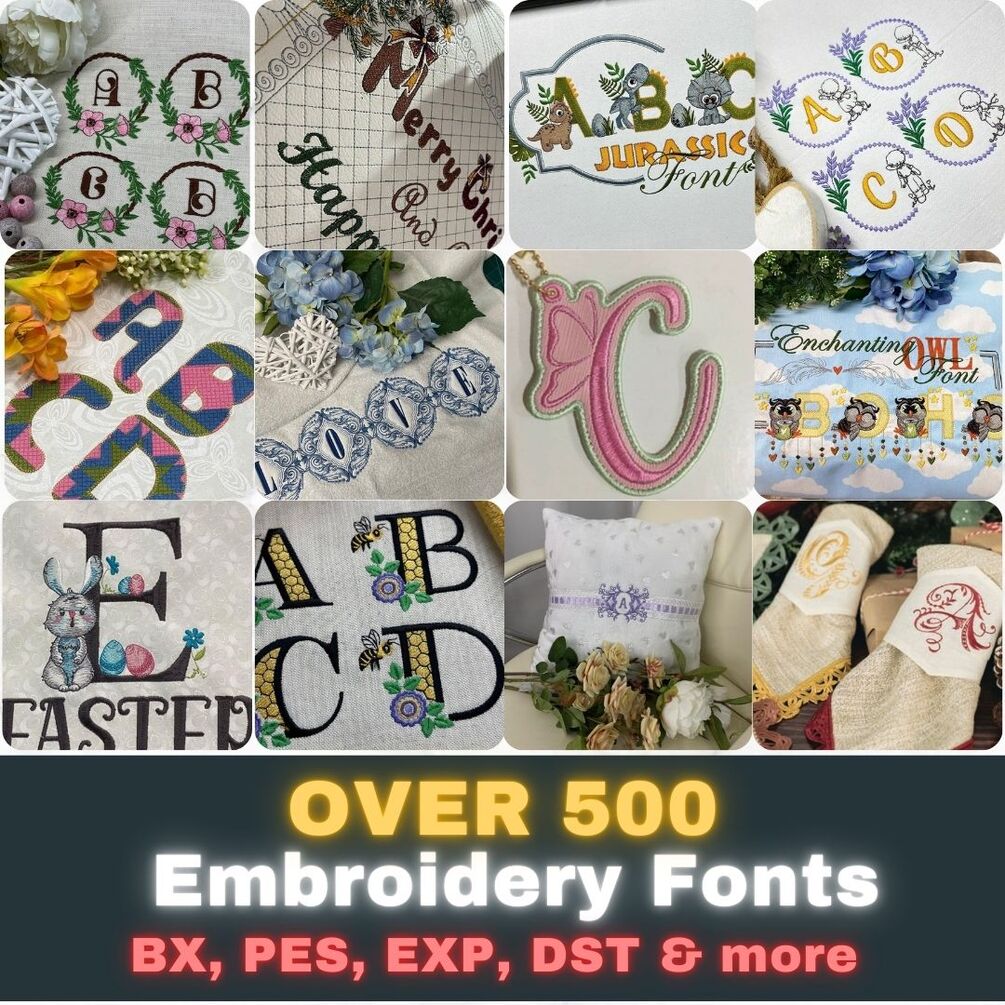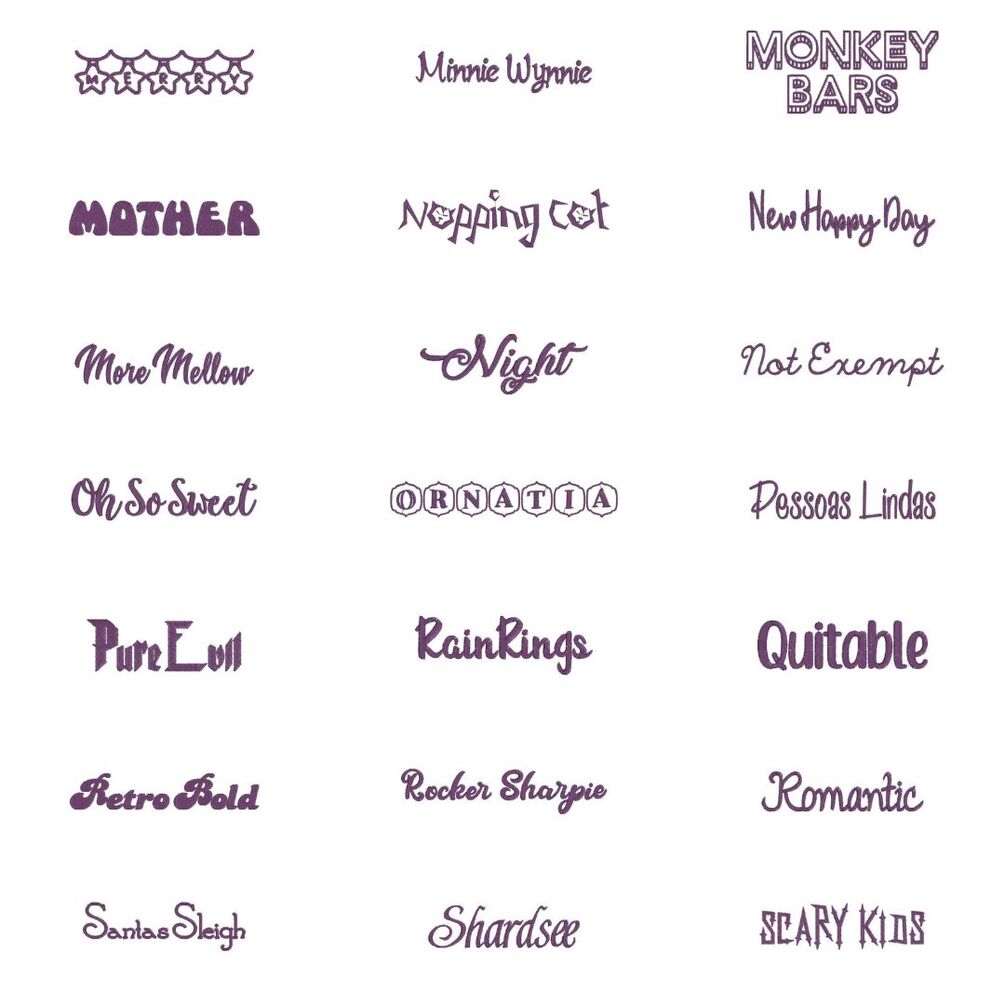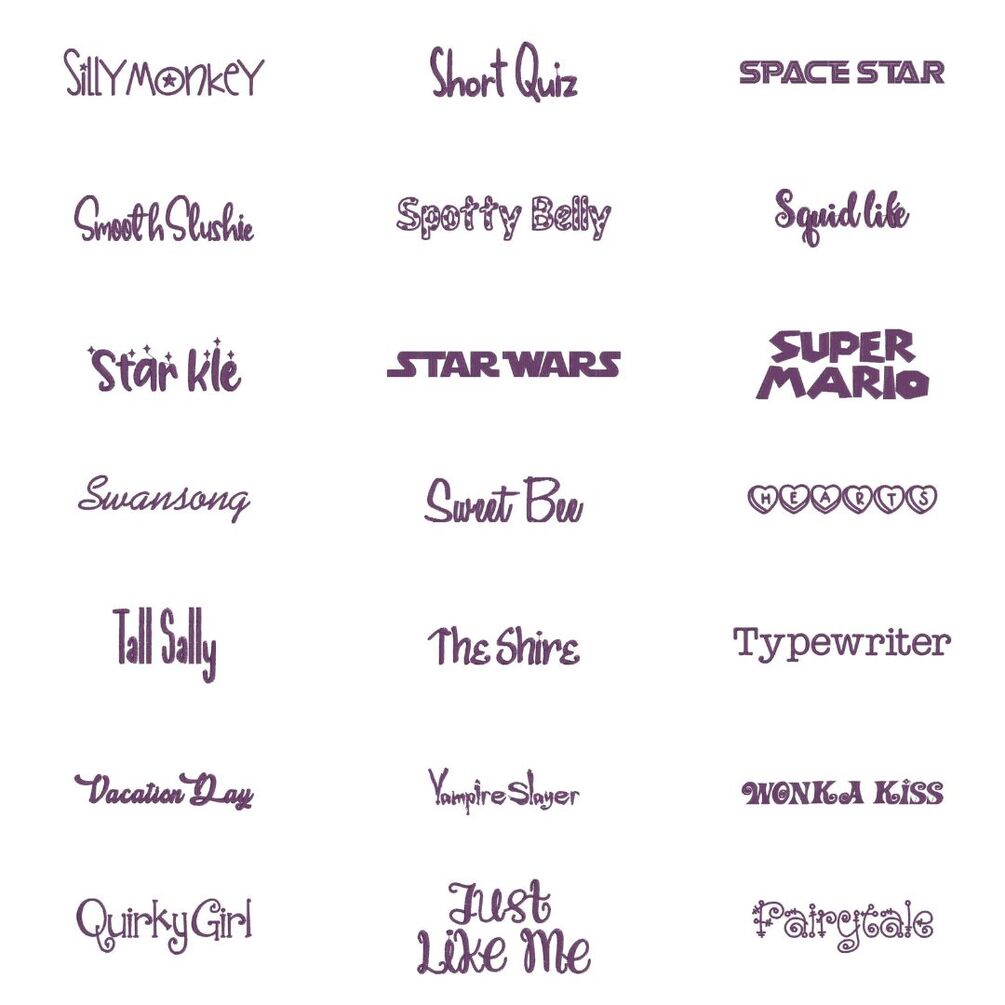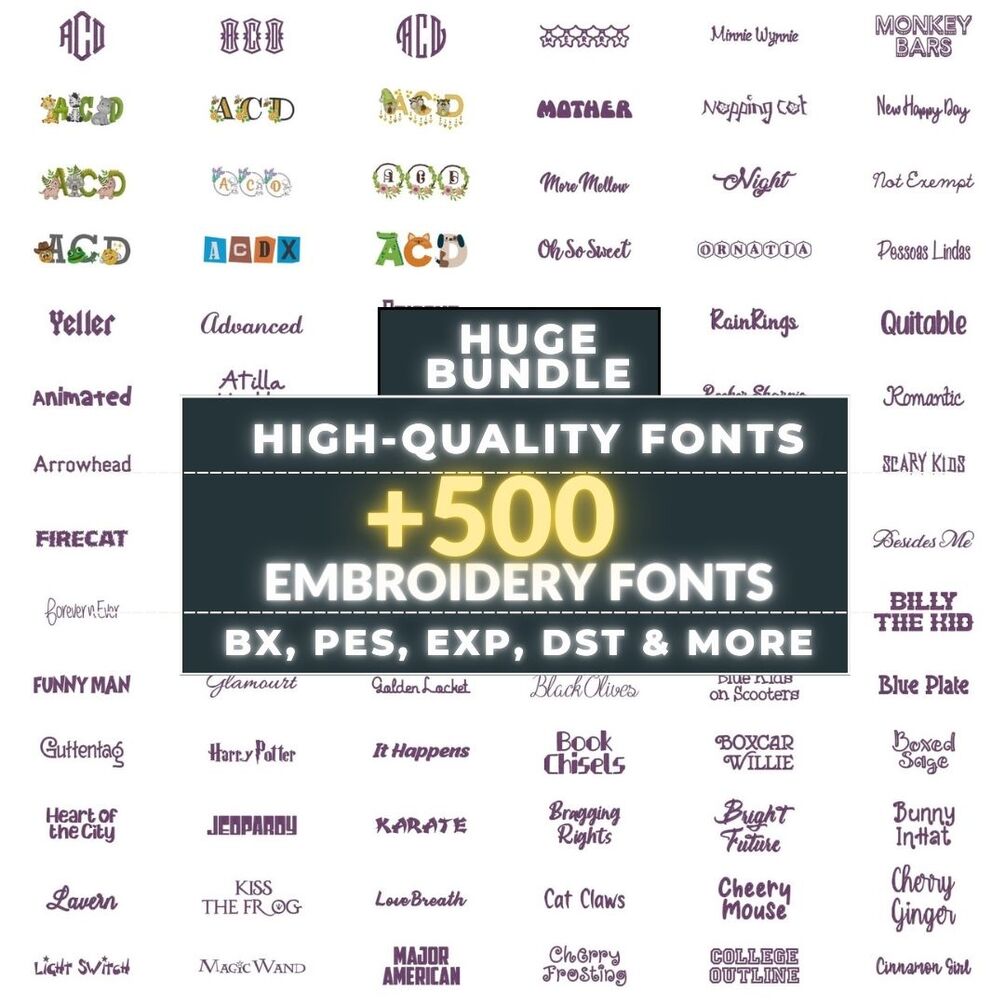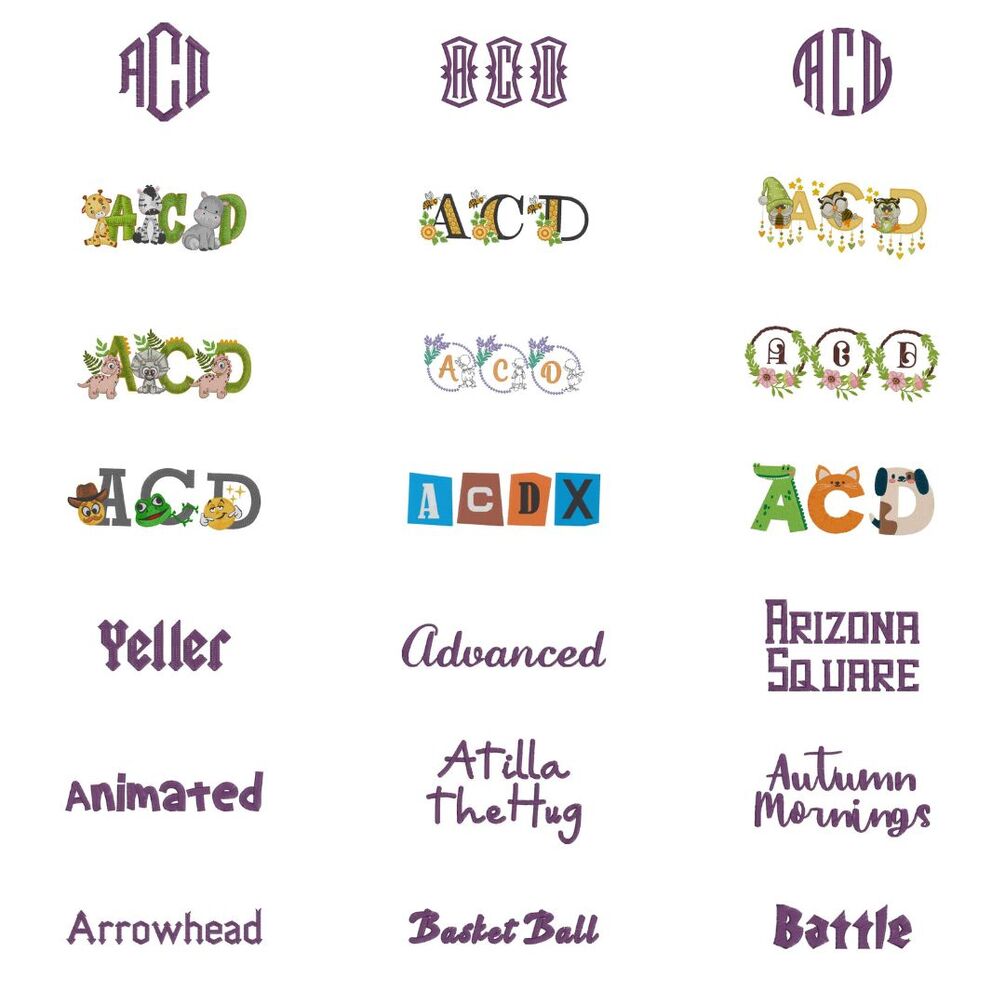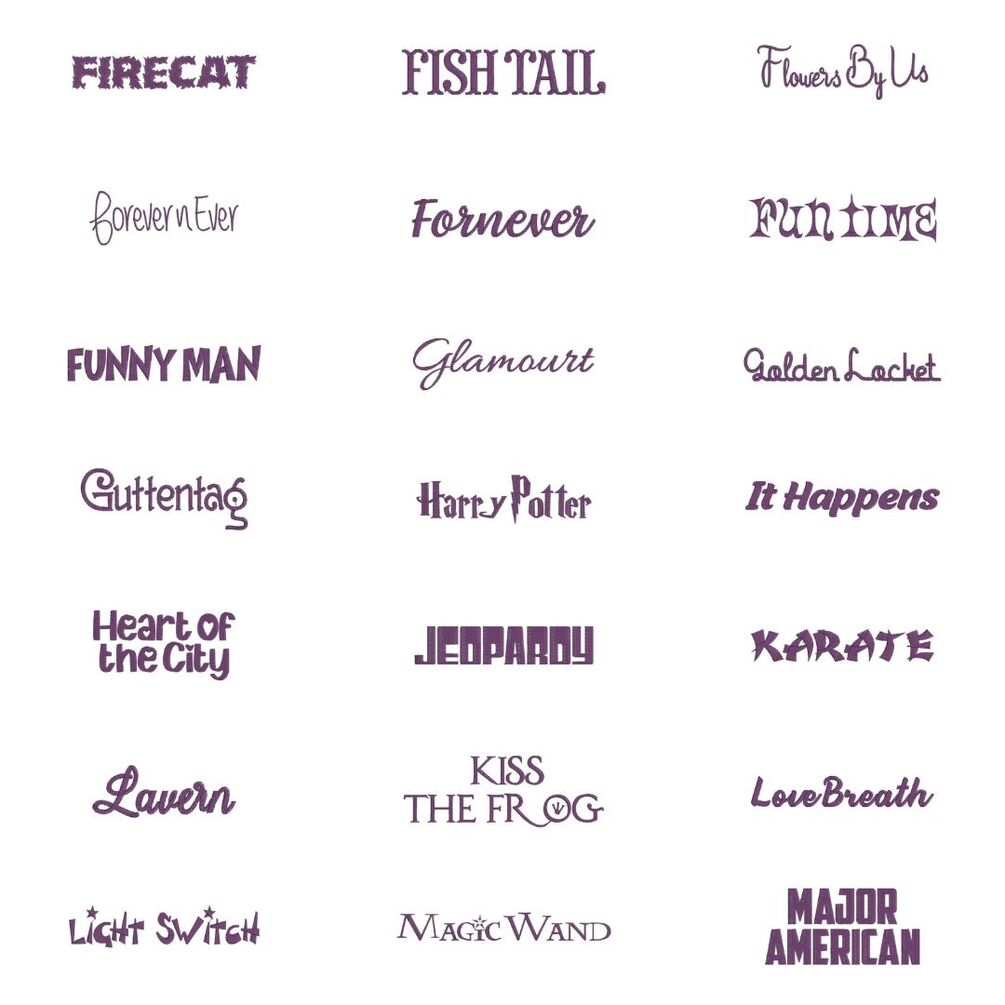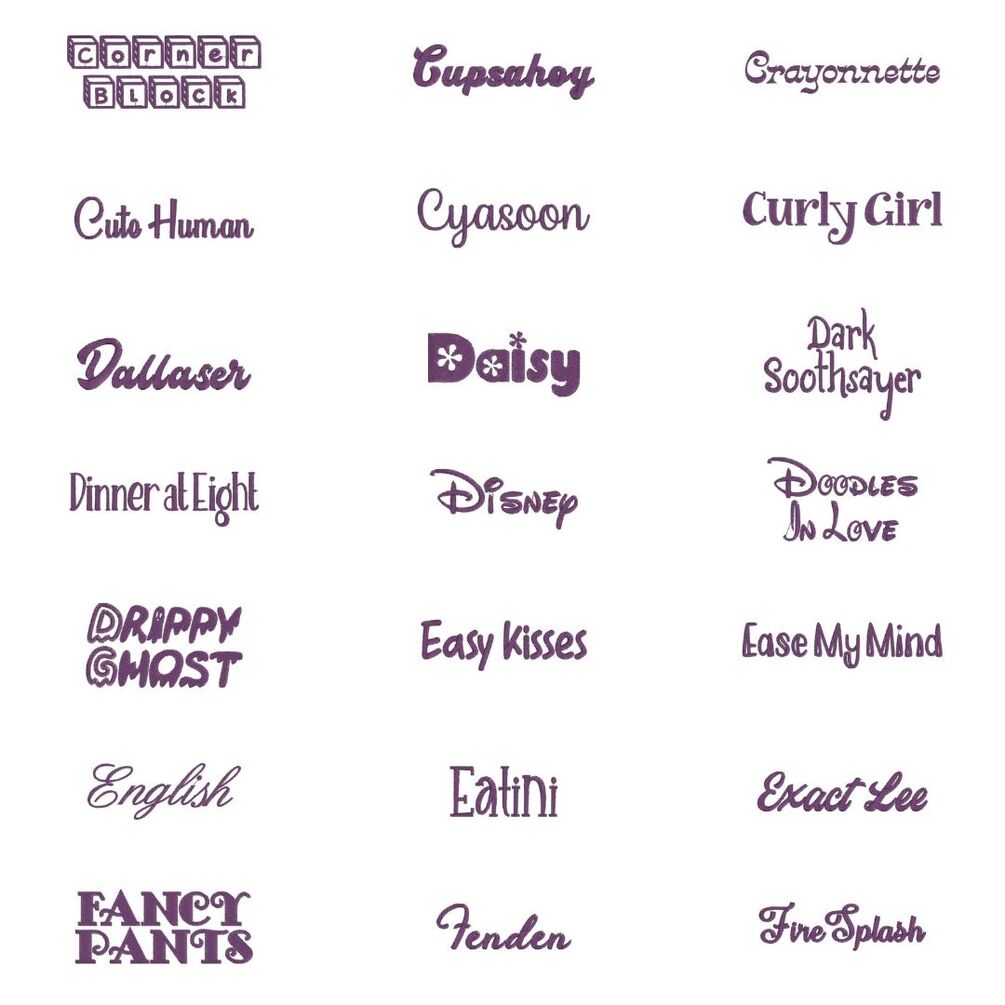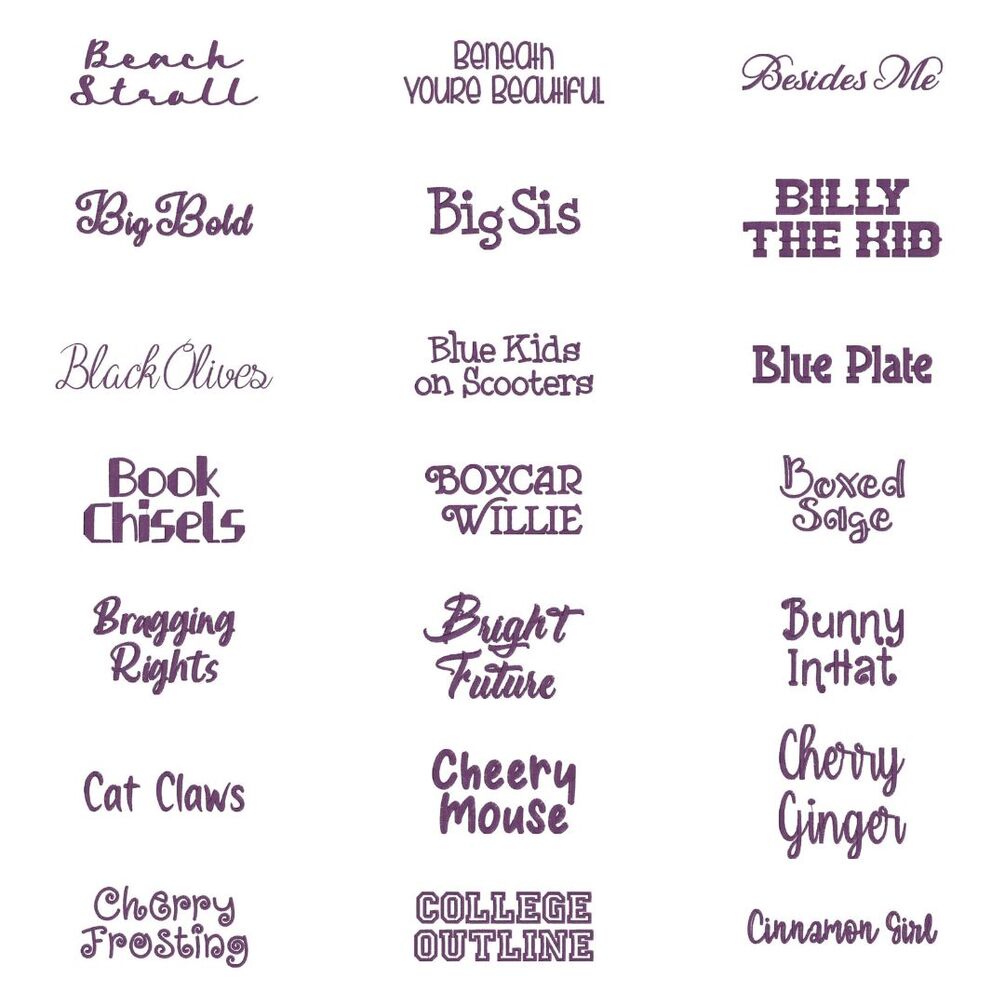
🧡 Massive Machine Embroidery Font Bundle β€” 500+ Premium Fonts in All Major Formats!
* ✨ 500+ high-quality embroidery fonts
* πŸ—‚ Fonts organized by style: Script, Block, Decorative, Modern
🧡 Perfect For:
* Personalized gifts (baby clothes, robes, towels)
* Monograms, names, and custom embroidery
* Apparel & uniforms (hoodies, shirts, hats)
* Business branding (name tags, logo stitching)
* Home decor & crafting